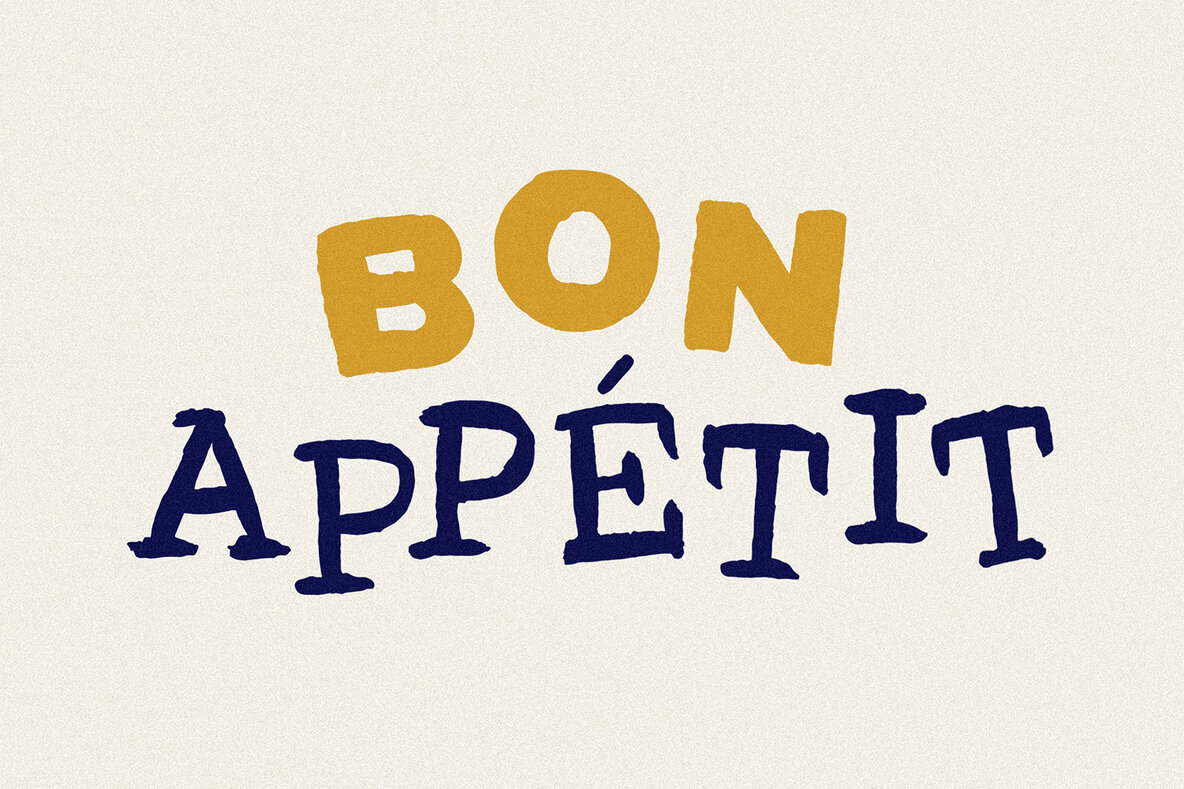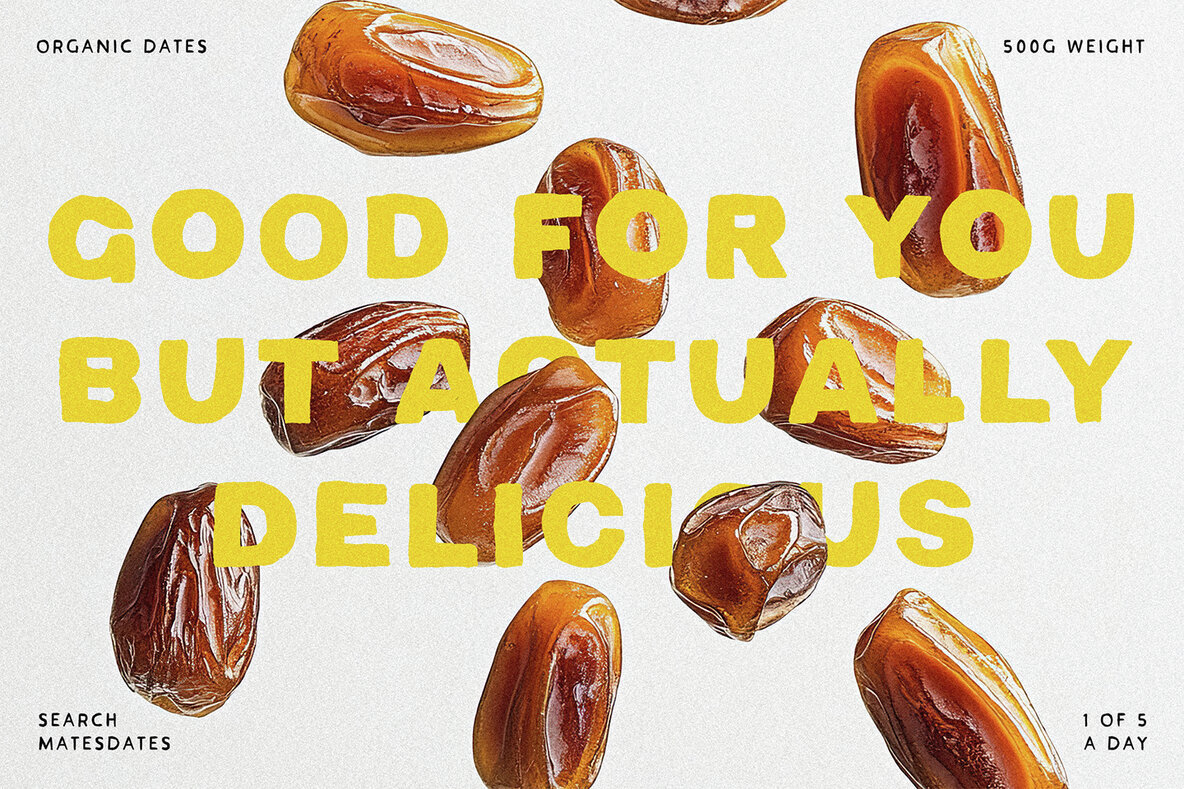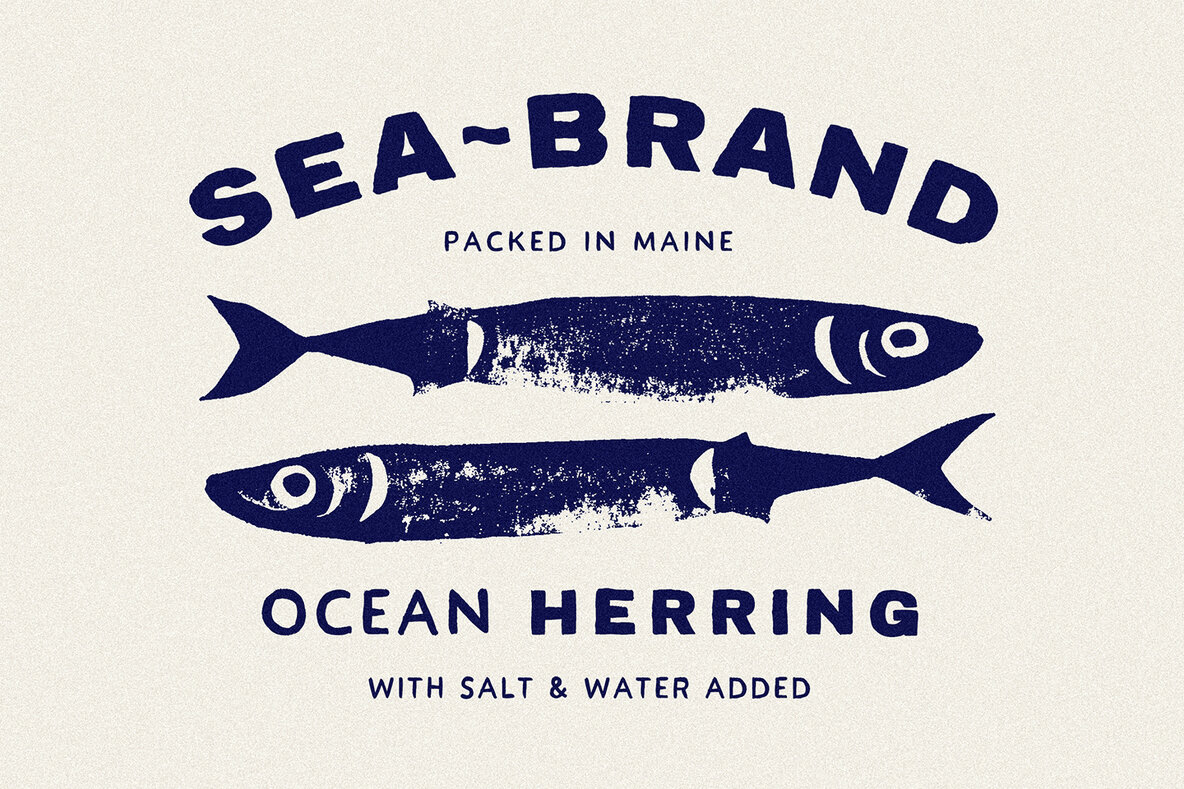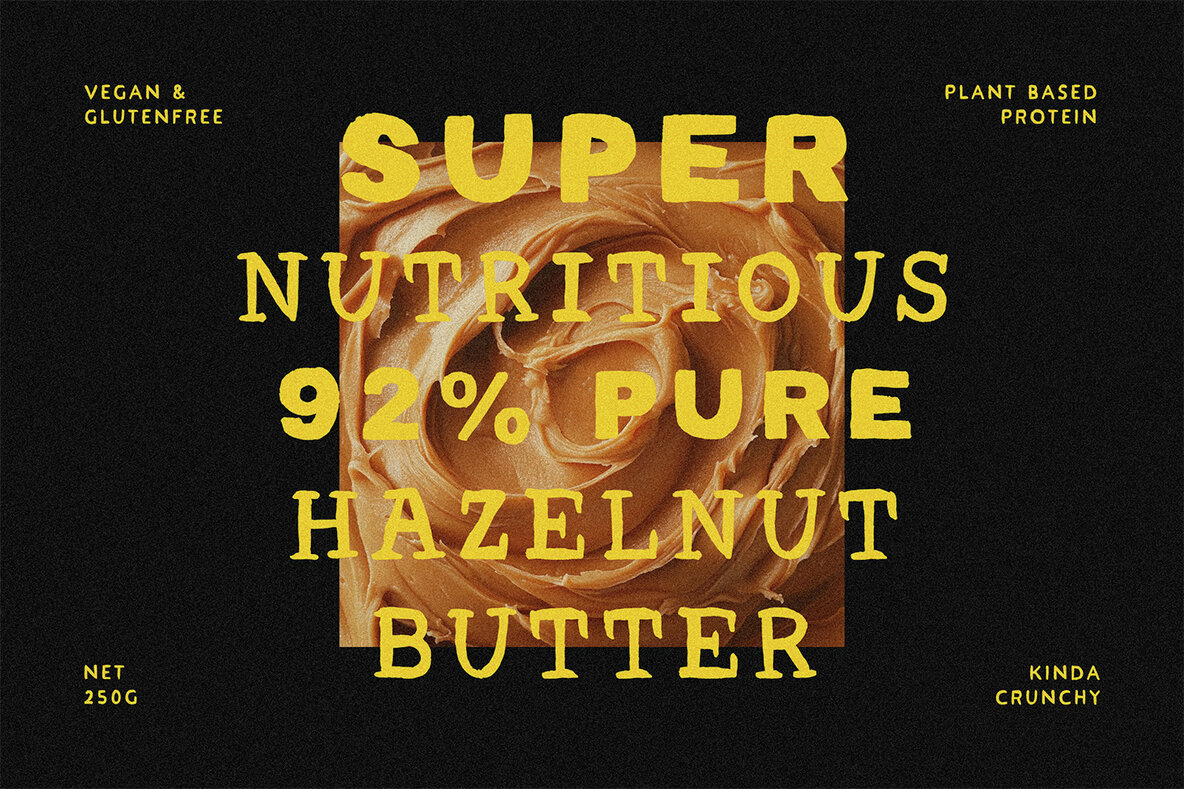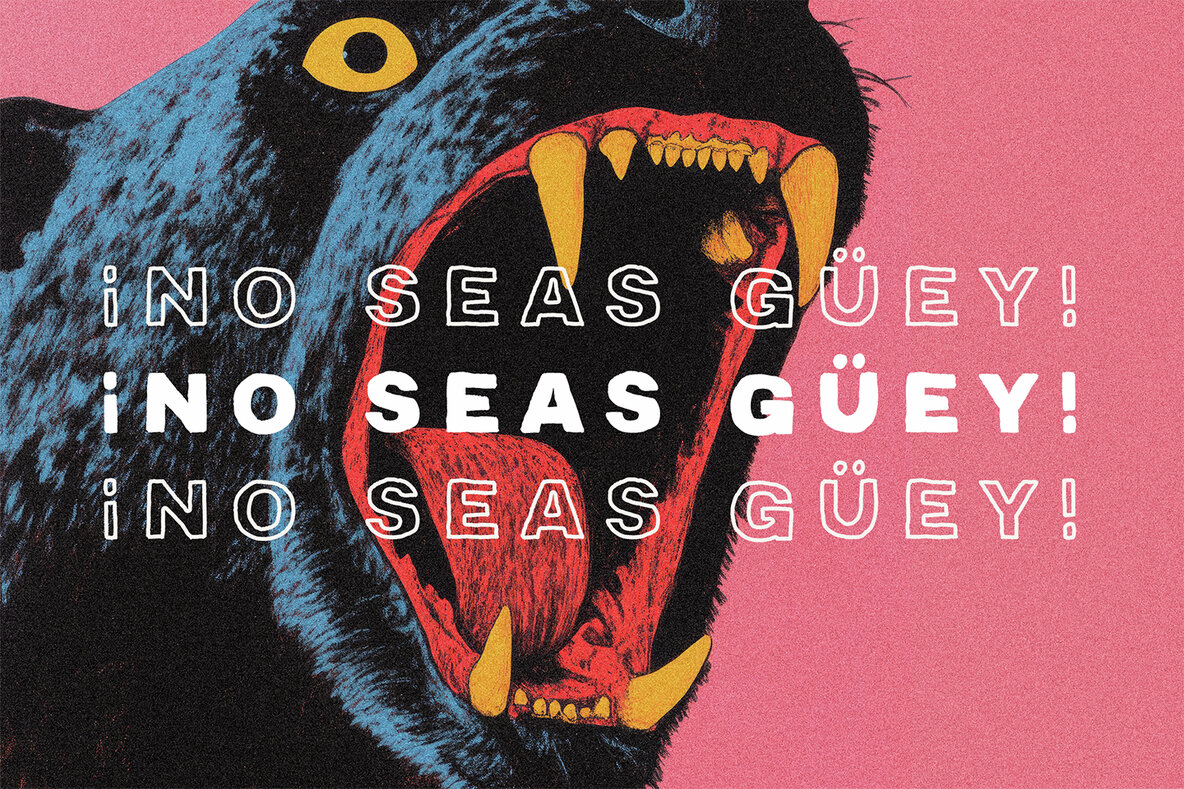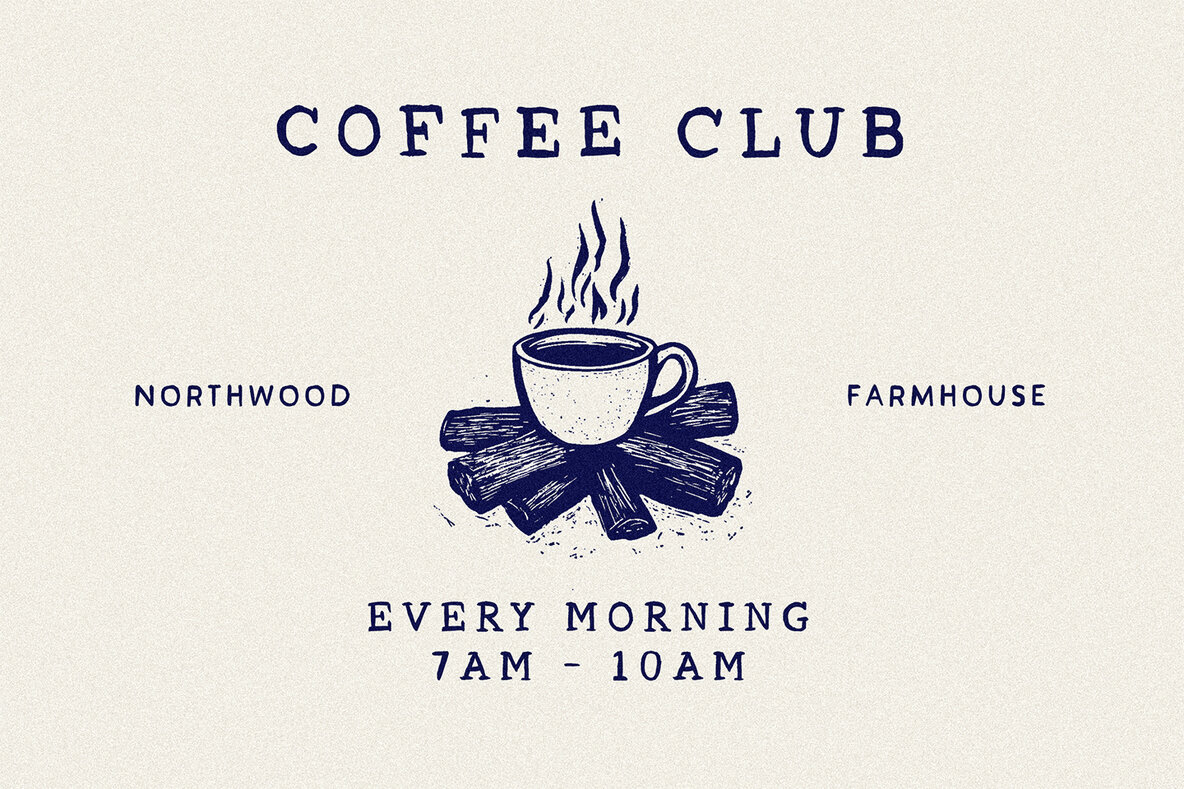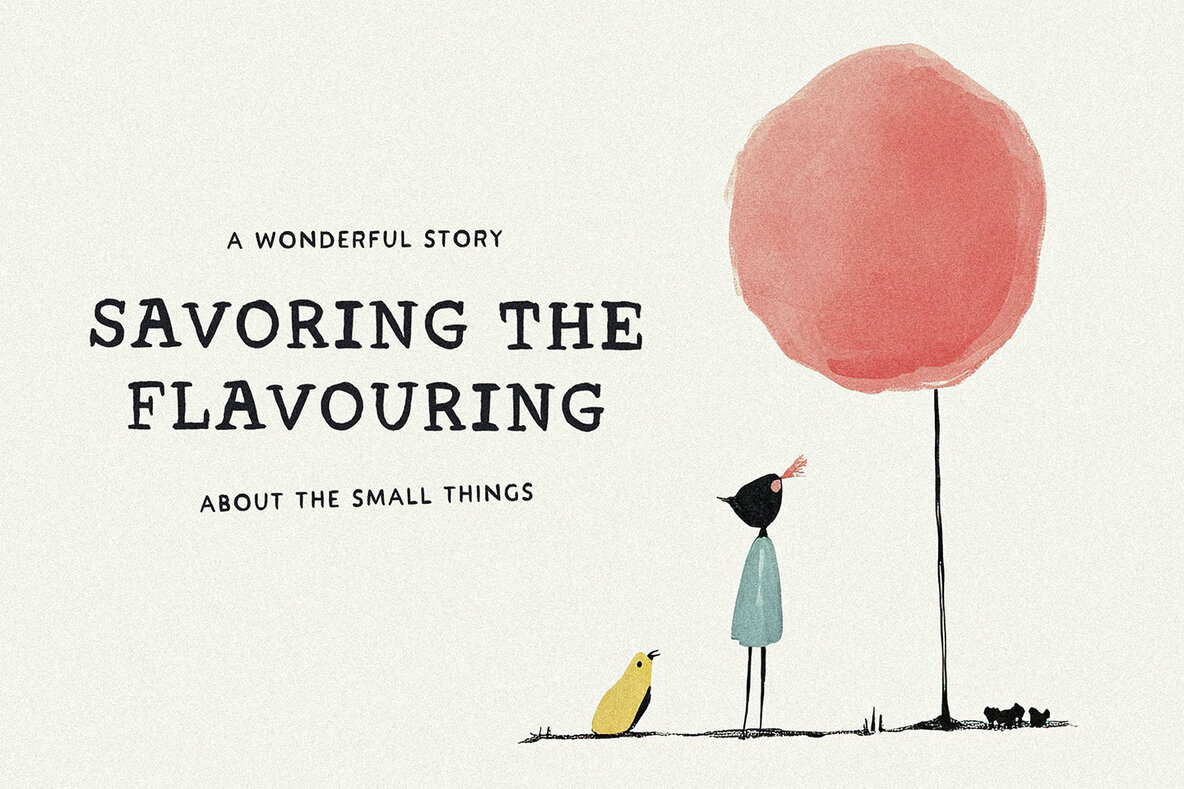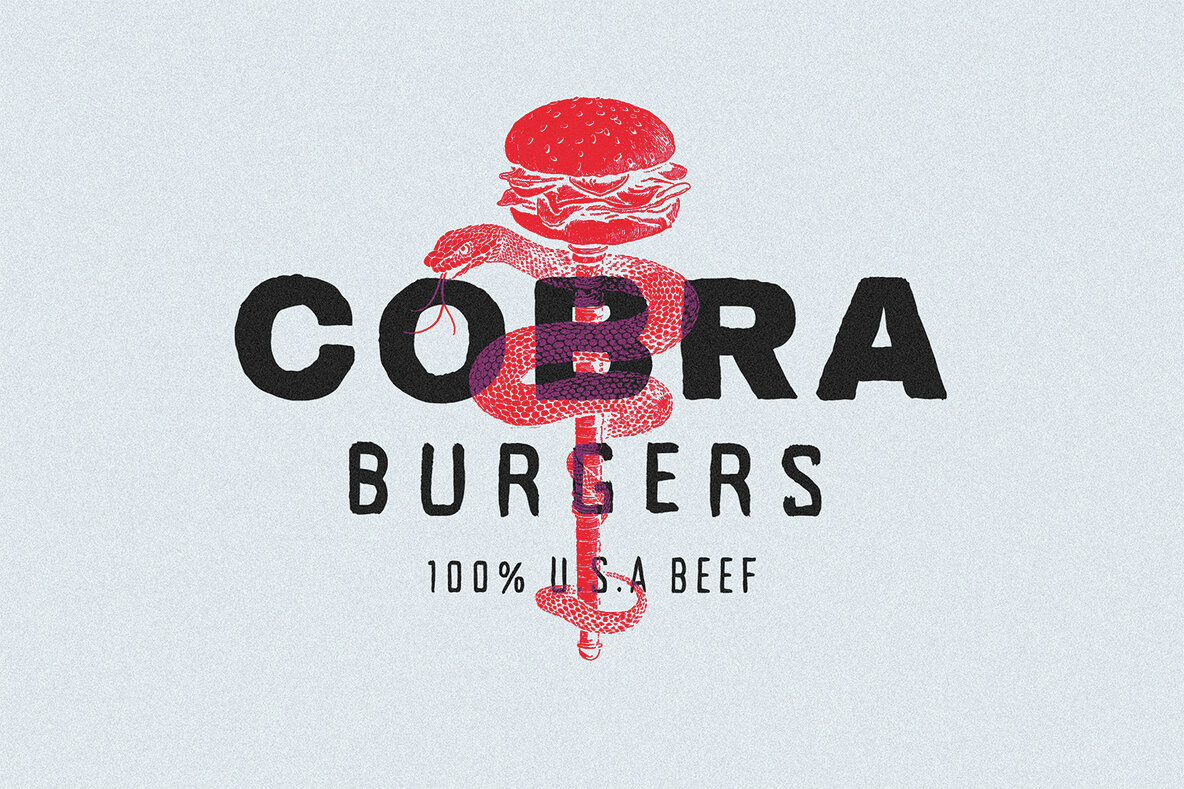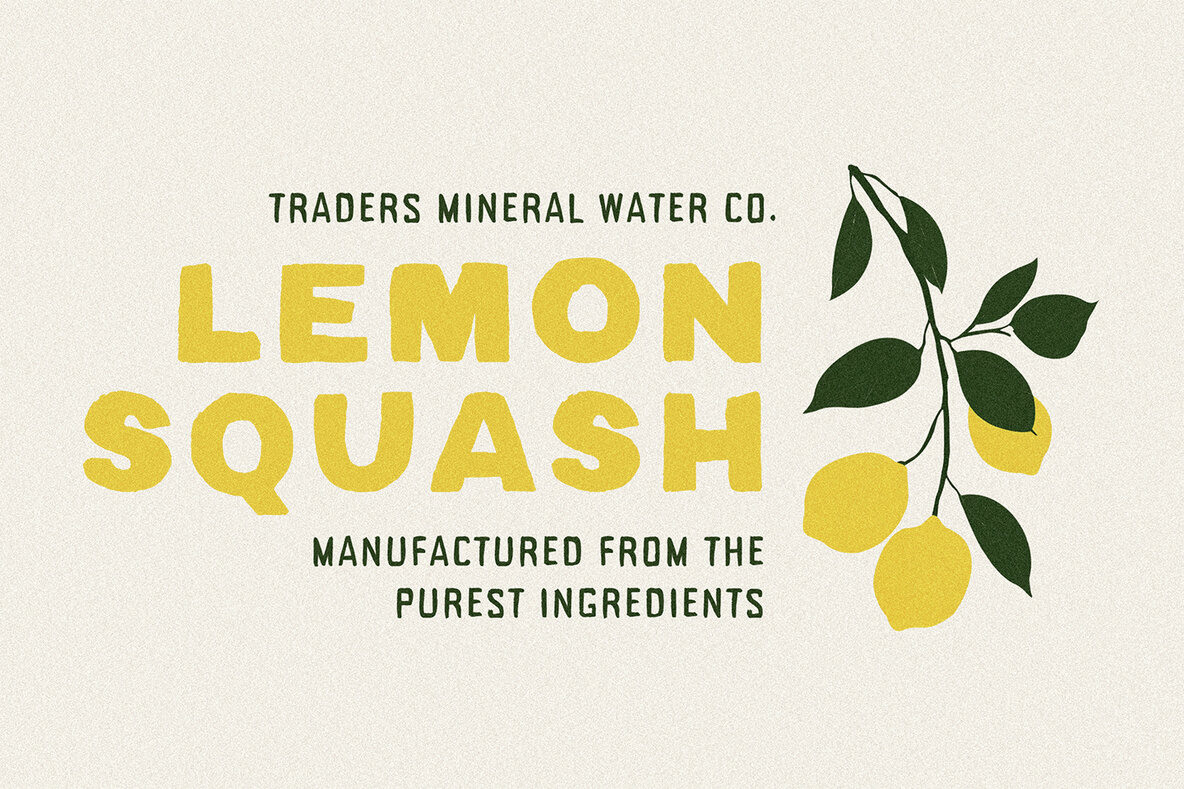
TC Acrylic Hand Font
TC Acrylic Hand Sans
TC Acrylic Hand Serif
TC Acrylic Hand Tall
TC Acrylic Hand Thick
Introducing Acrylic Hand! This versatile brush font collection contains a tall, regular, and thick sans-serif typeface alongside a wonderfully quirky serif—each brimming with character and handmade charm. Designed to complement each other, these fonts can be combined for a dynamic look or stand firm on their own, making them a great choice for design projects needing a clearly human touch. From bold headlines to packaging and apparel, the Acrylic Hand font collection adds a truly authentic vibe with oodles of perfect imperfections.